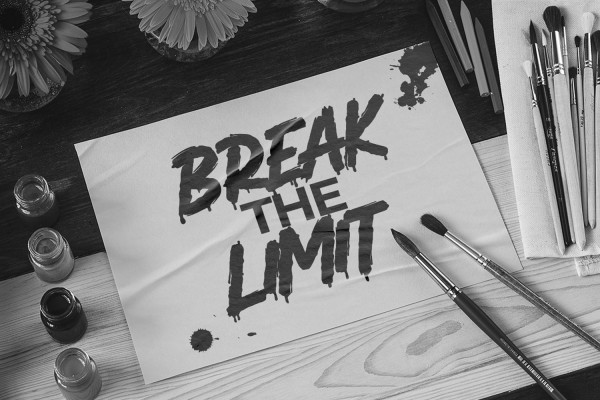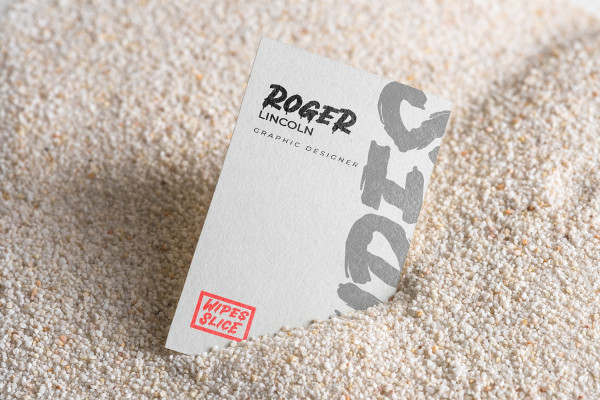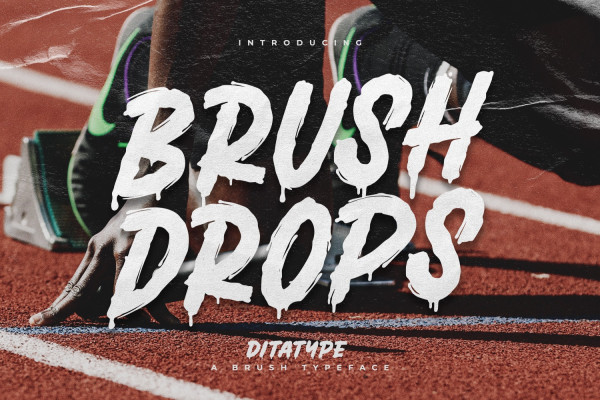
Brush Drops Font
Brush Drops Font is a modern, impressive font that mixes the brush script characteristics and lovely, smooth ink drop details. This capital letter font shows stronger, more elegant displays. The letter shapes are in soft and smooth brush wipes with even edge lines to show firmer, clearer impressions. Furthermore, the ink drop details show personal, interesting touch on some of the letter parts. Bright, contrast colors will make this font outstanding and eye-catching. In addition, you may apply it for big text sizes to be greatly legible, and enjoy the available features here as well.
Brush Drops fits best for various design projects, such as brandings, quotes, printed products, merchandise, social media, etc. Find out more ways to use this font by taking a look at the font preview.